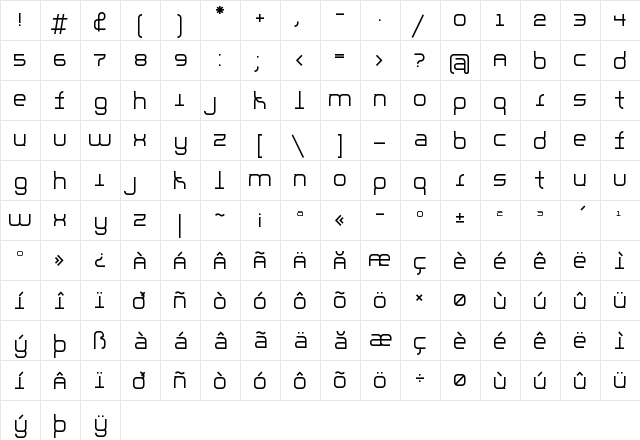
Parallello Regular
| Designer | Espen Kvalheim |
Design Context for Parallello Typeface
Parallello takes a measured approach to typography — its balanced proportions and neutral character make it a reliable workhorse for both digital and print work.